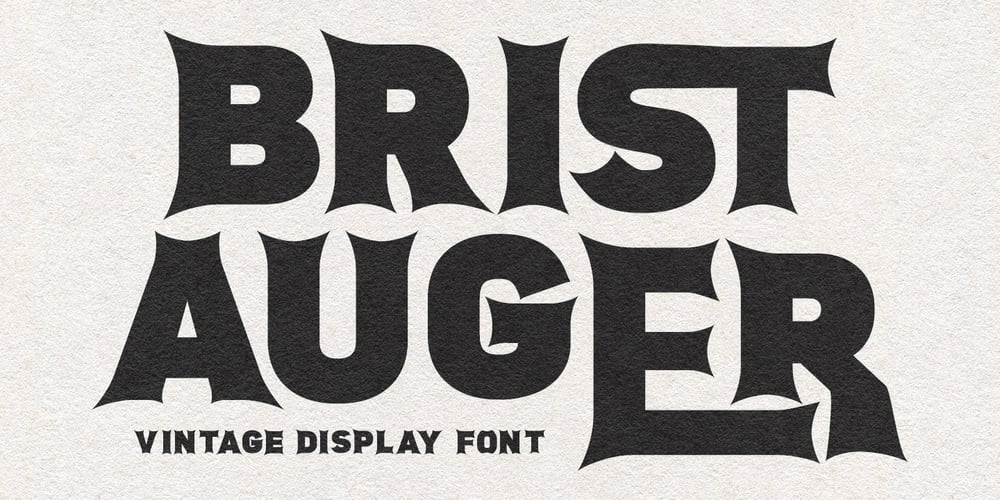
MC Brist Auger Font Family was designed by Gilang Maulana and published by Maulana Creative. MC Brist Auger contains 1 styles and family package options. Brist Auger is a vintage display font. With bold stroke, fun character with a bit of ligatures. To give you an extra creative work. Brist Auger font support multilingual more than 100+ language. This font is good for logo design, Social media, Movie Titles, Books Titles, a short text even a long text letter and good for your secondary text font with sans or serif. Make a stunning work with Brist Auger font.